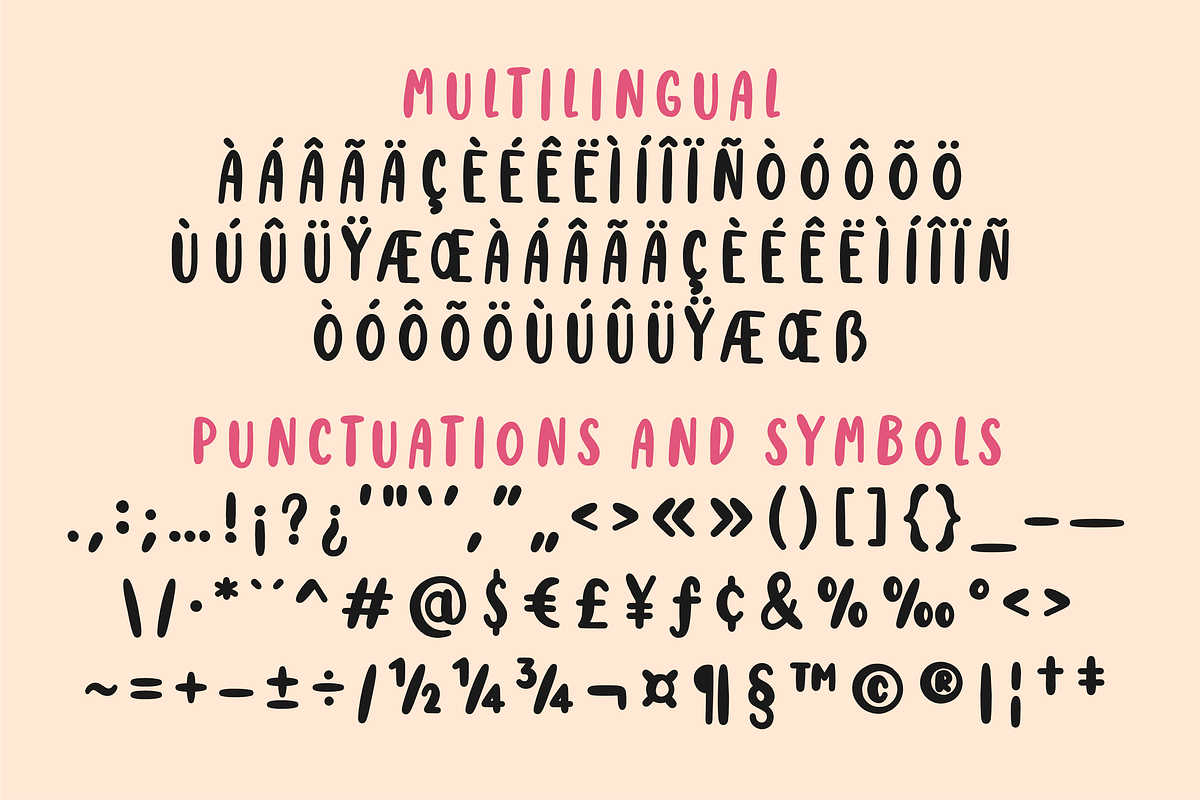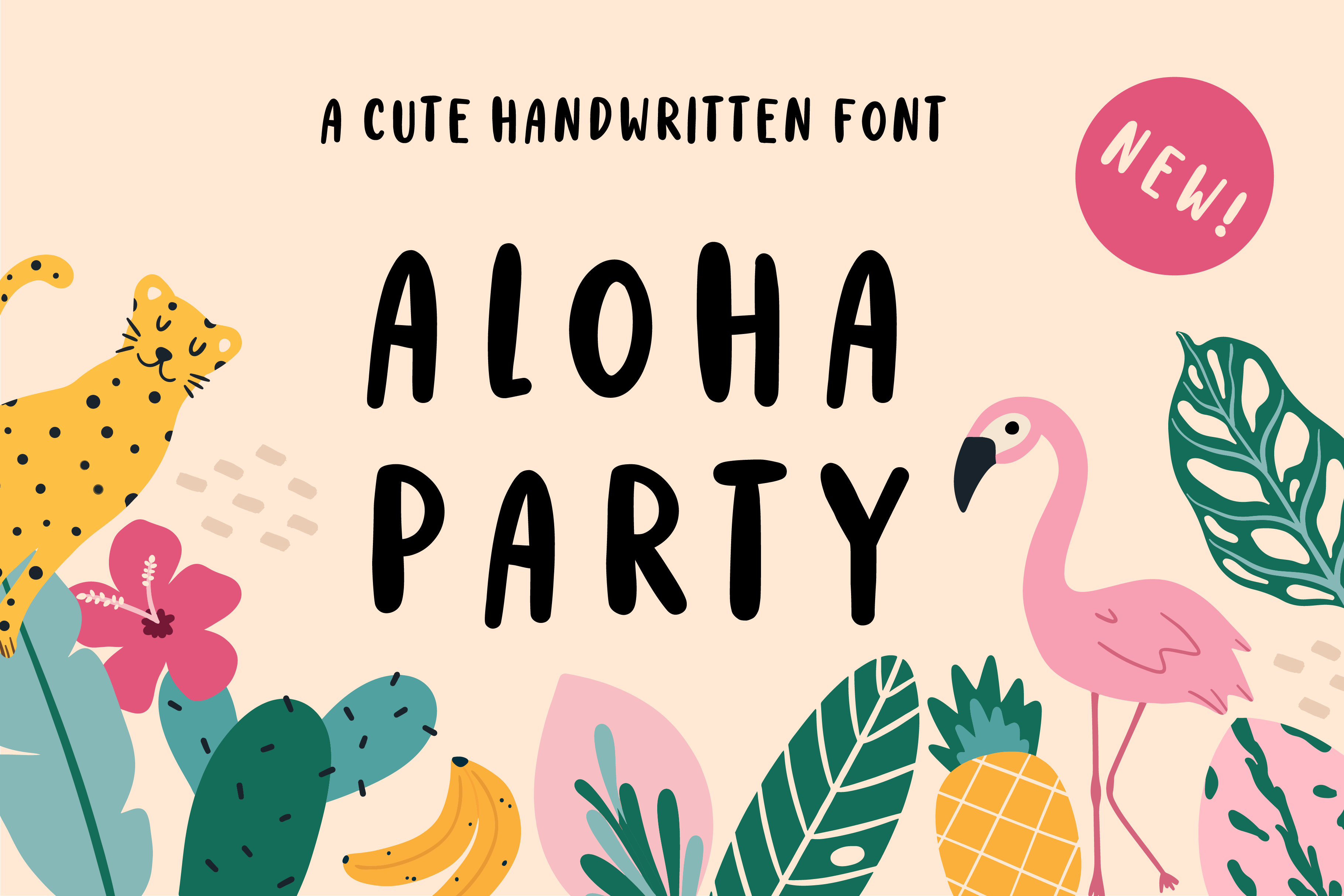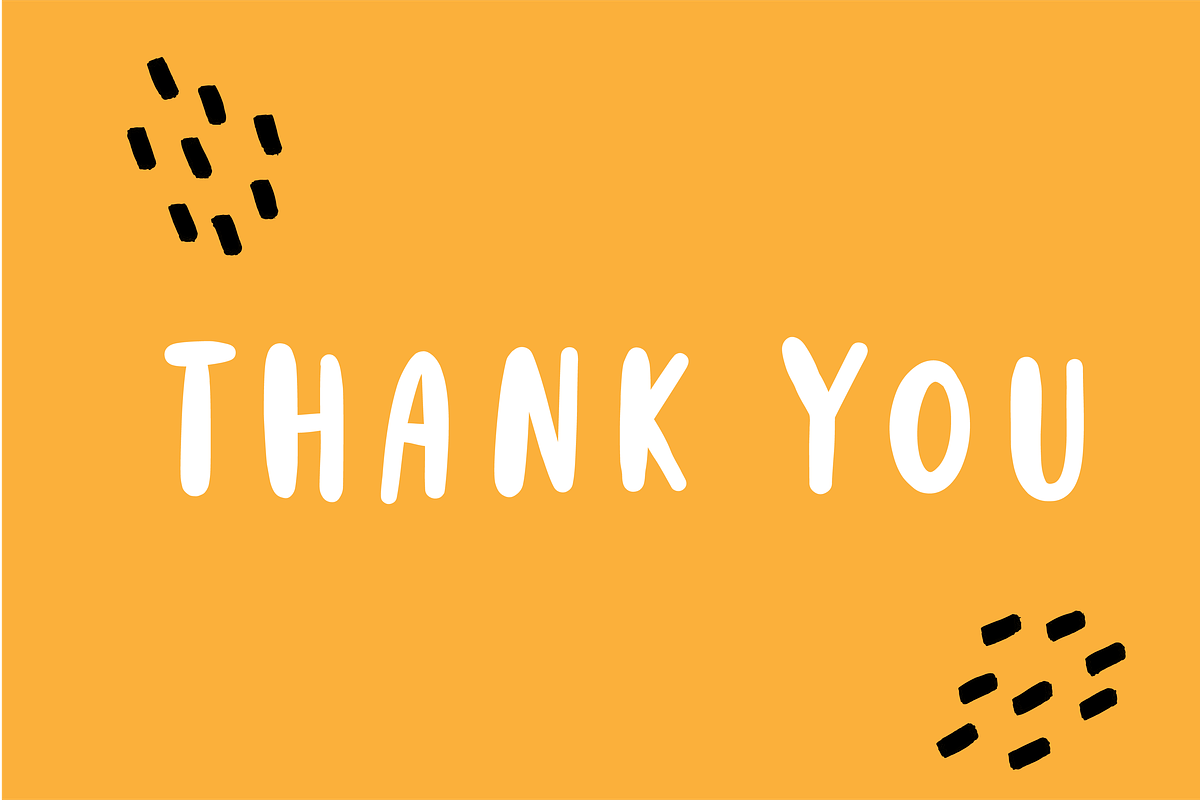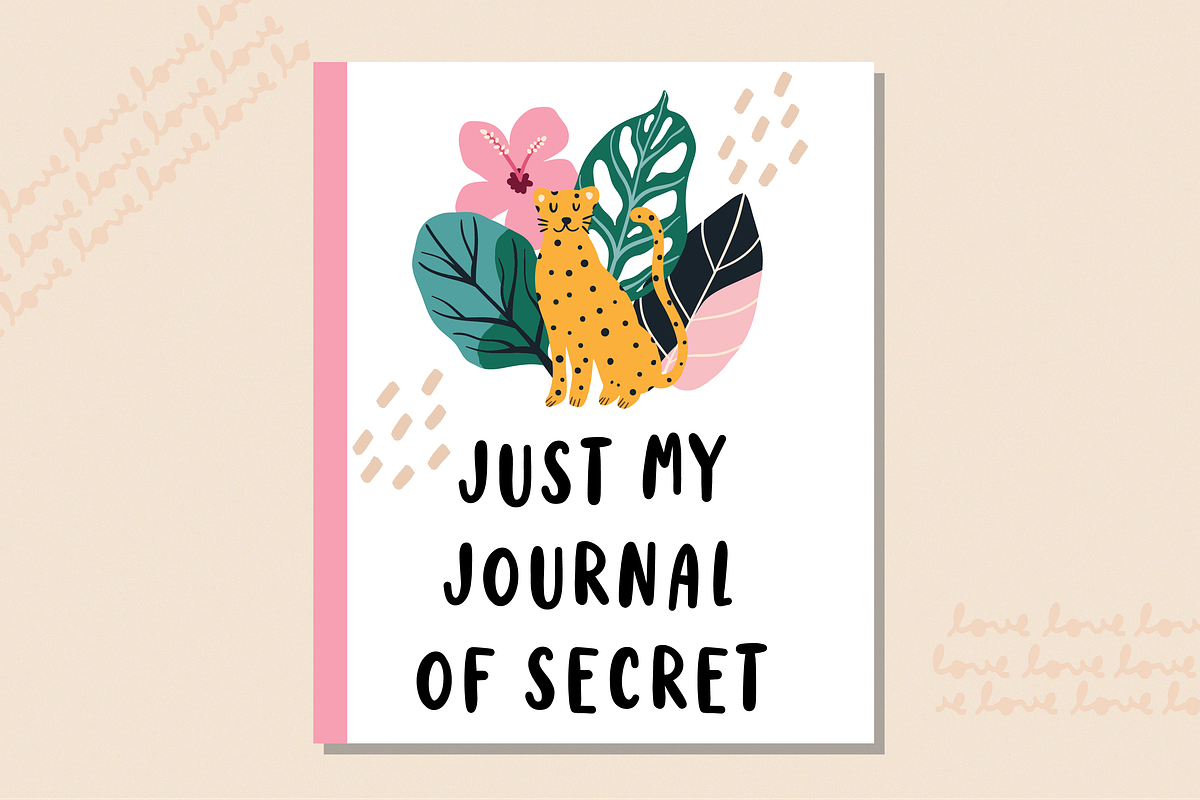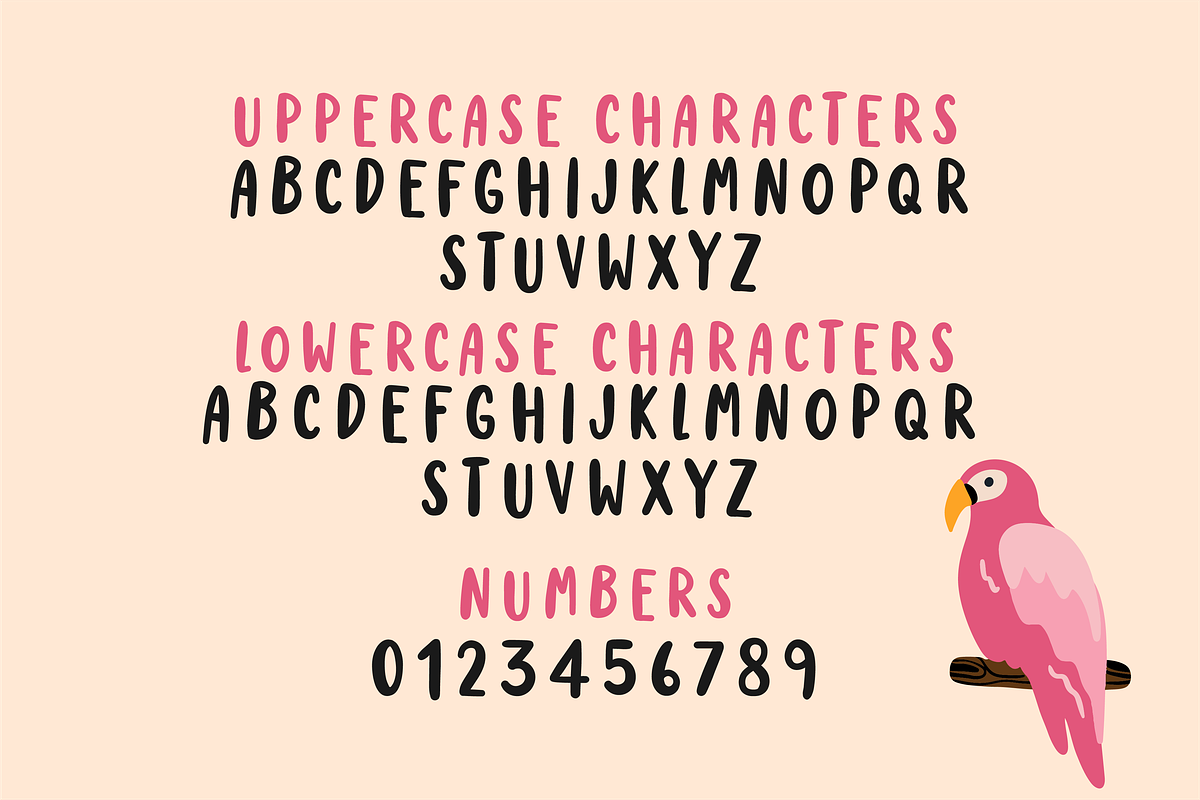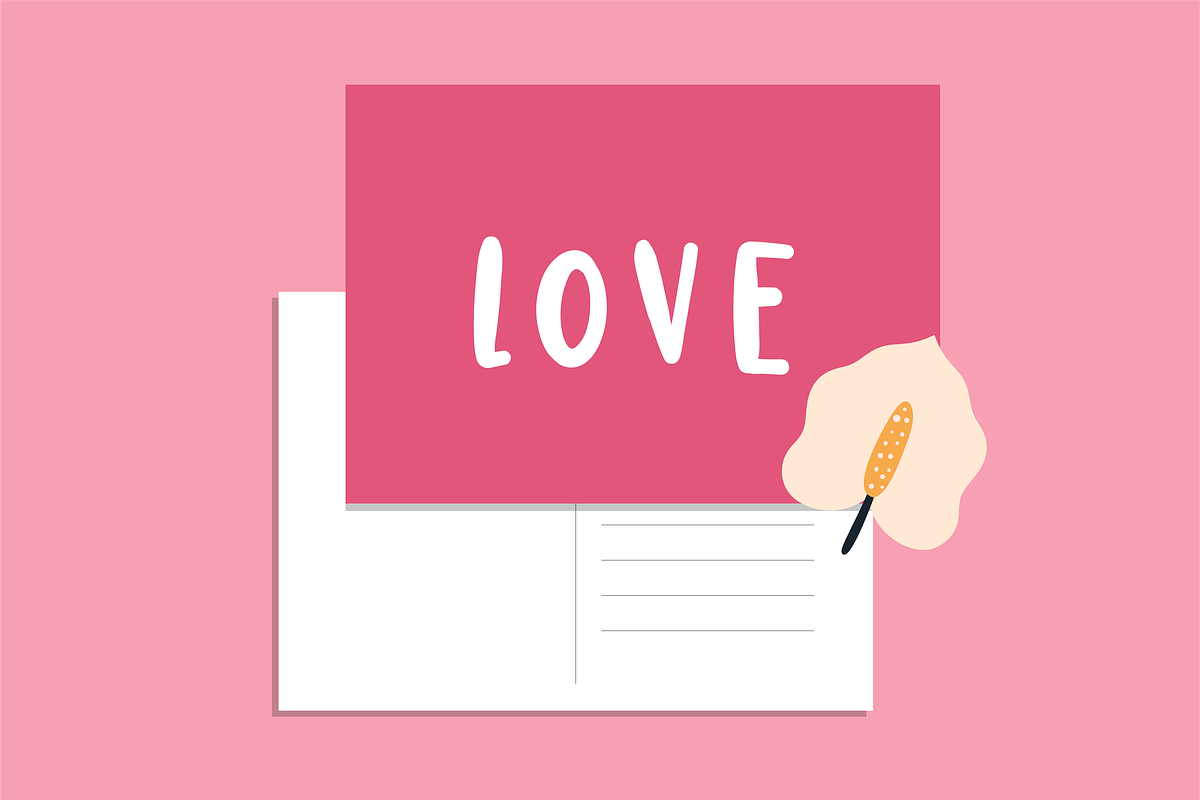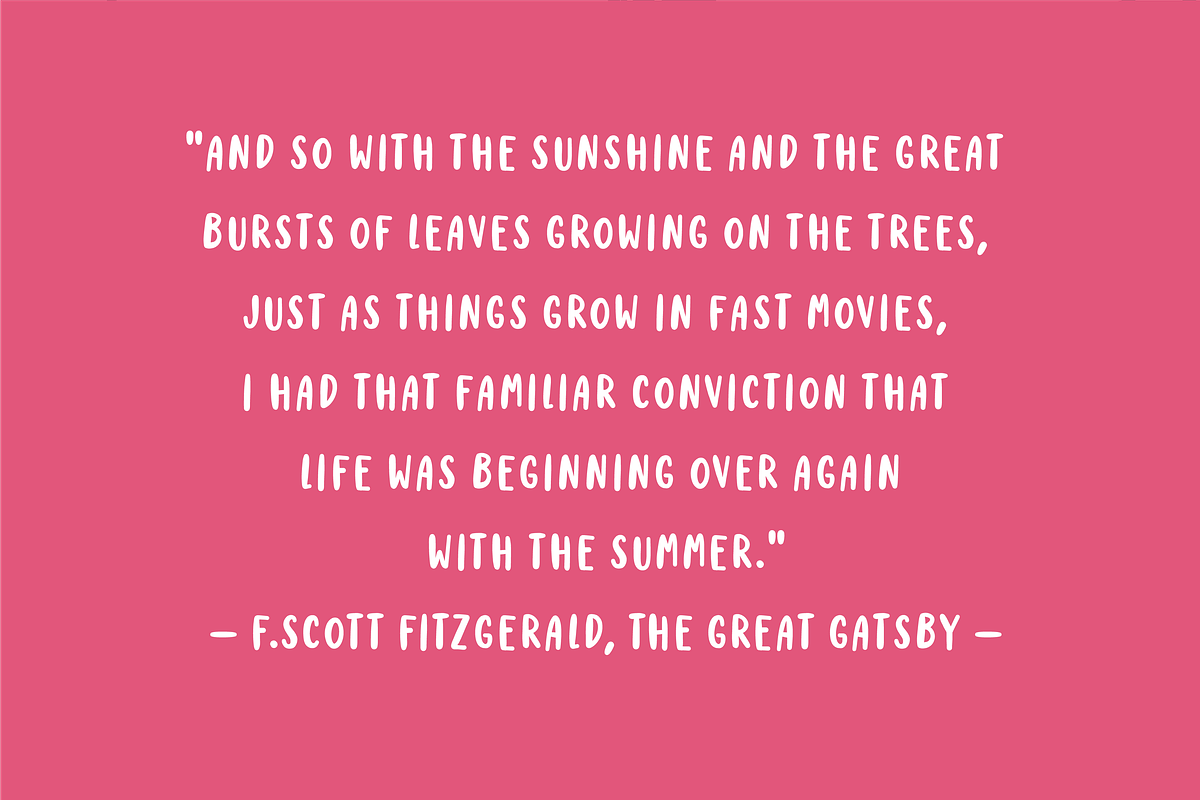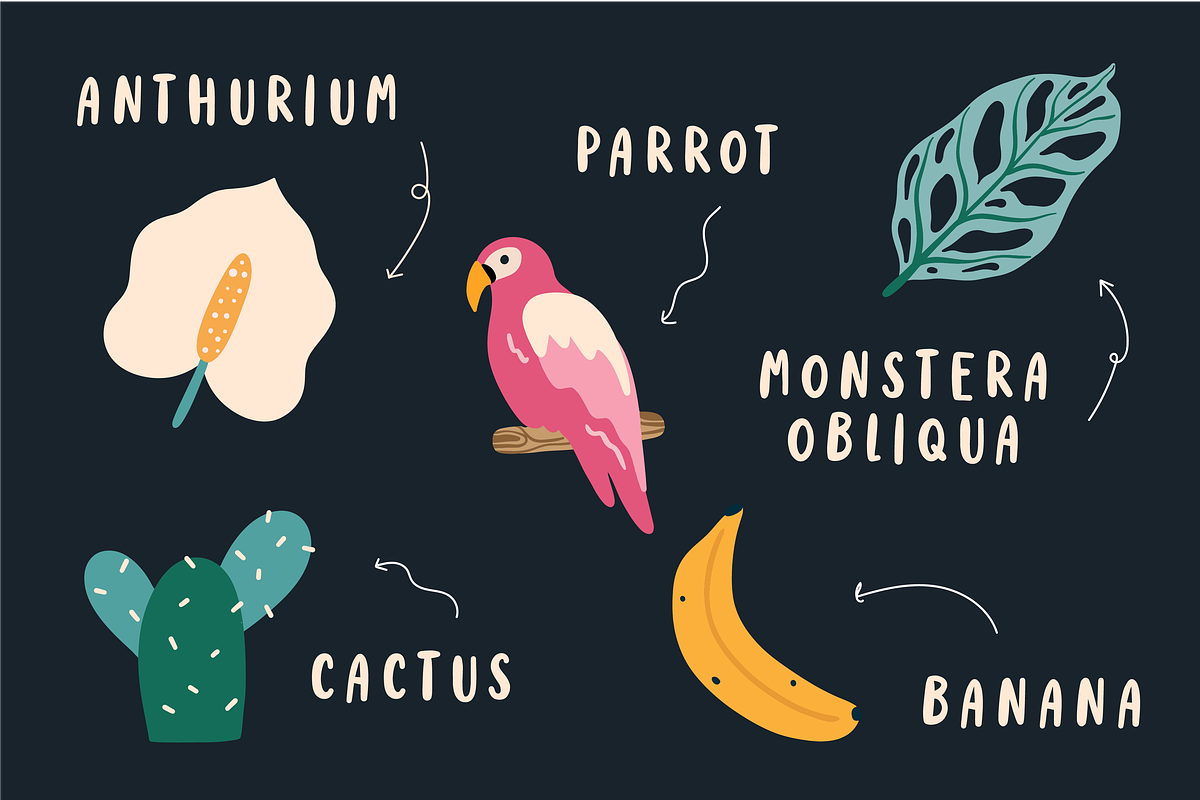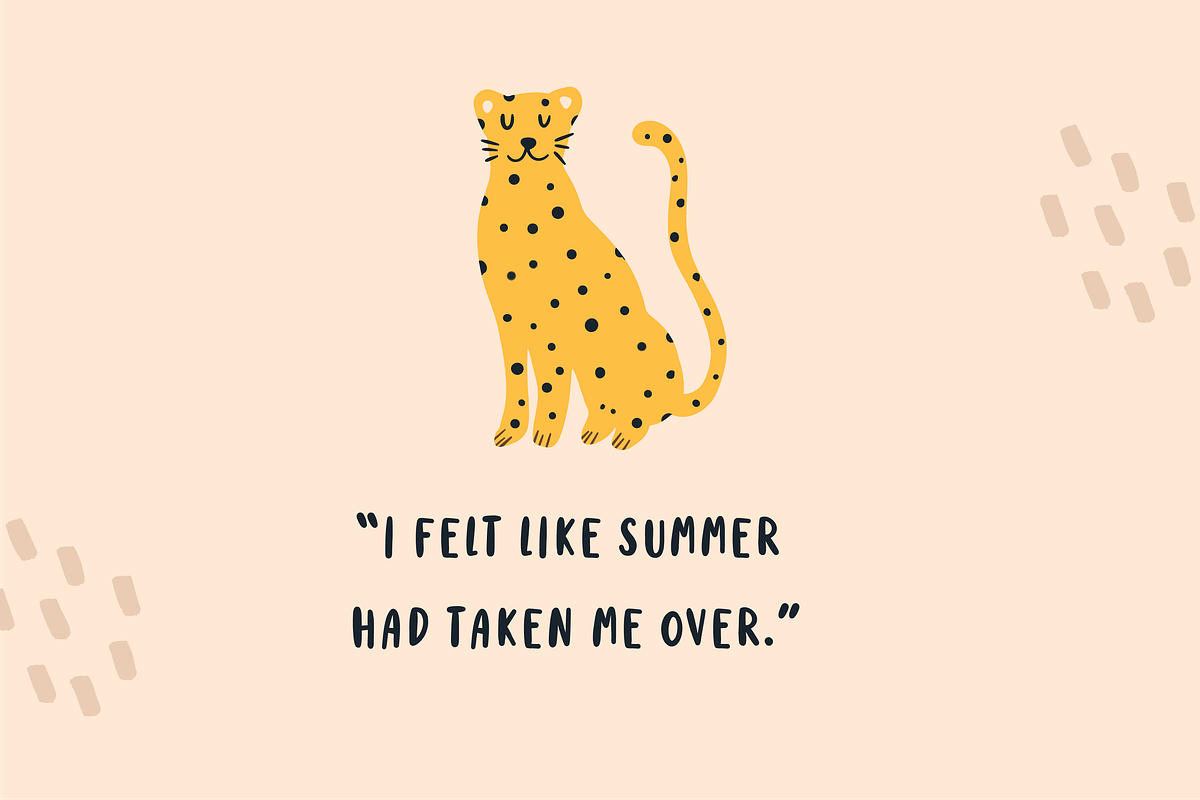
Aloha party font
ALOHA PARTY is a cute handwritten font. Perfect for summer projects, shirts, lively designs, invitation cards, mugs, stickers, playful quotes, creating posters, logos, greeting cards, packaging, decorating the illustration and so much more!
Aloha party Font Features:
- Extended punctuation.
- Multilingual Characters support.